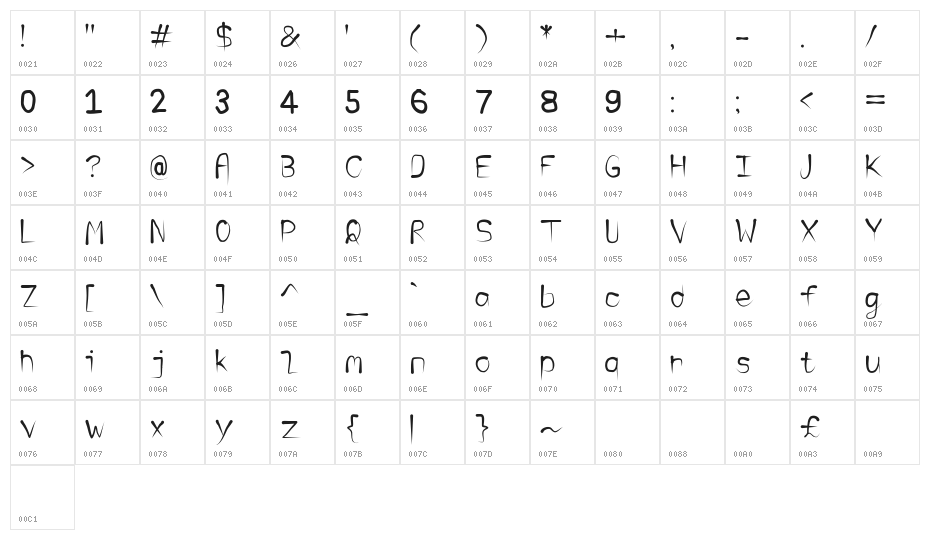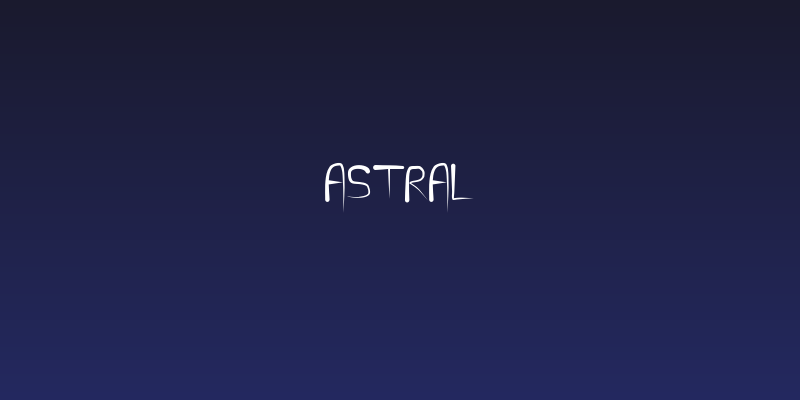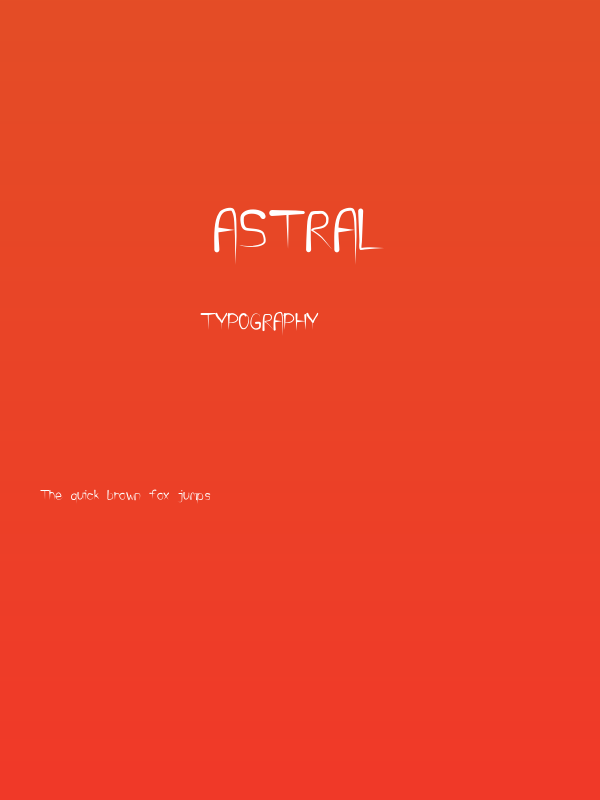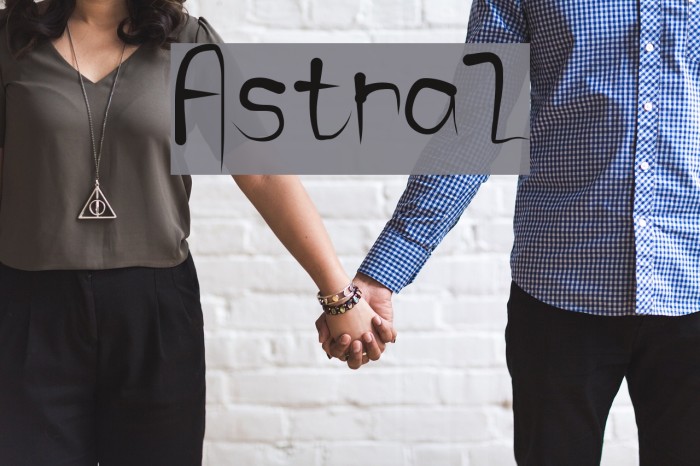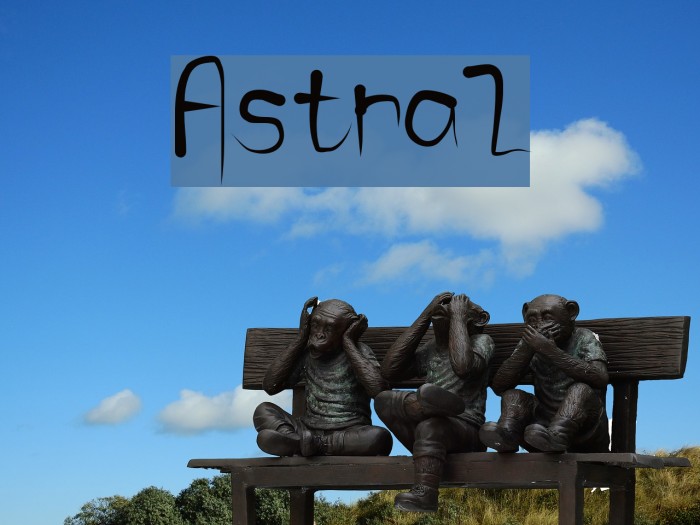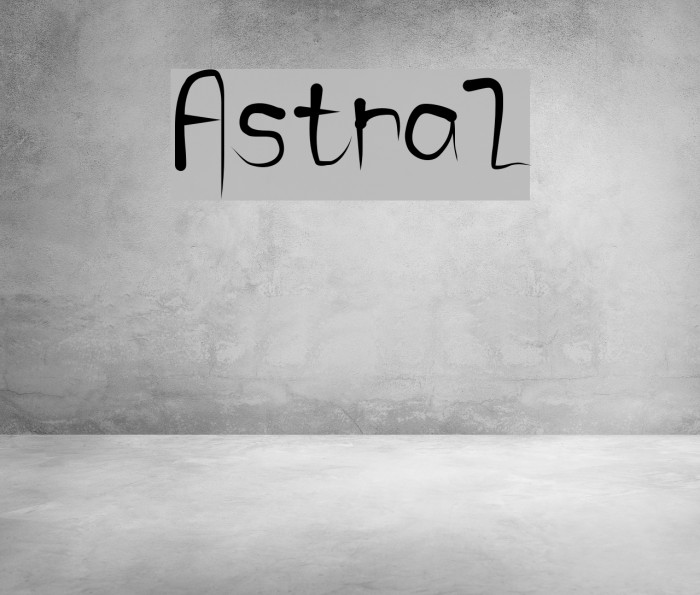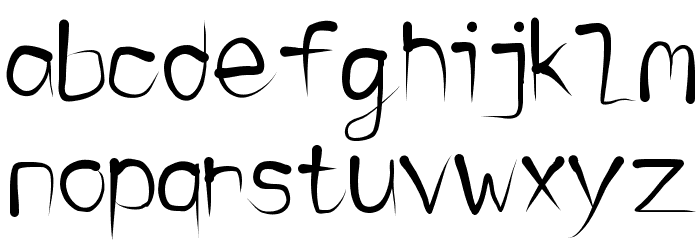
Astral Font
Astral Description
This font features a unique and artistic design with a playful yet slightly edgy appearance. The characters have a hand-drawn quality, with irregular strokes and varying line thicknesses that give it a dynamic and energetic feel. The uppercase letters are bold and prominent, while the lowercase letters maintain a consistent style, adding to the font's cohesive look. The numbers are equally expressive, with a quirky charm that complements the overall style. Special characters are creatively integrated, enhancing the font's versatility. This font is ideal for projects that require a distinctive and creative touch.
| Overall Style | Artistic, Playful |
| Proposed Projects | Ideal for creative projects such as posters, album covers, children's books, and branding materials that require a unique and artistic touch. |